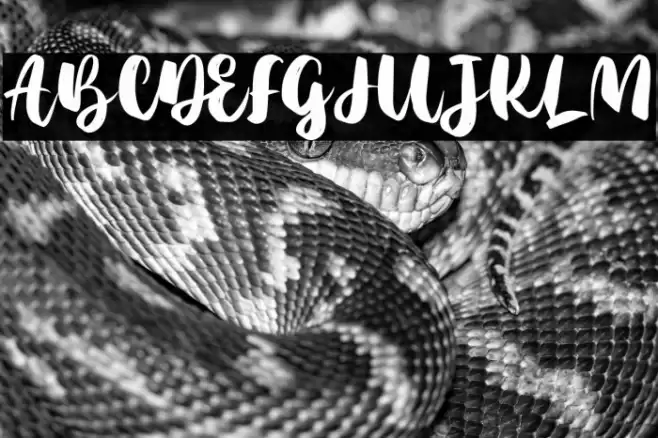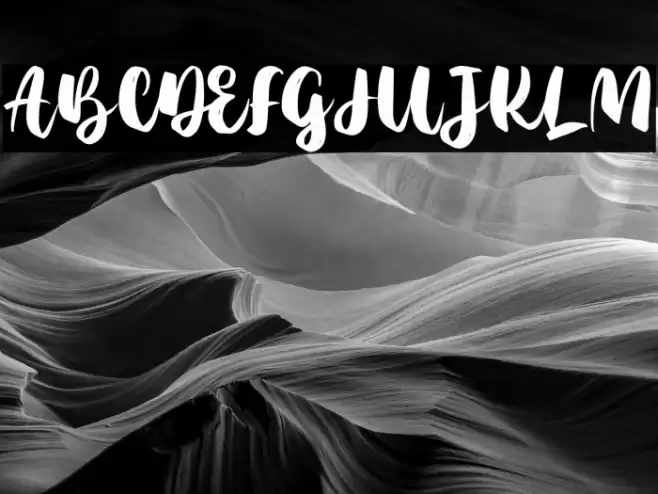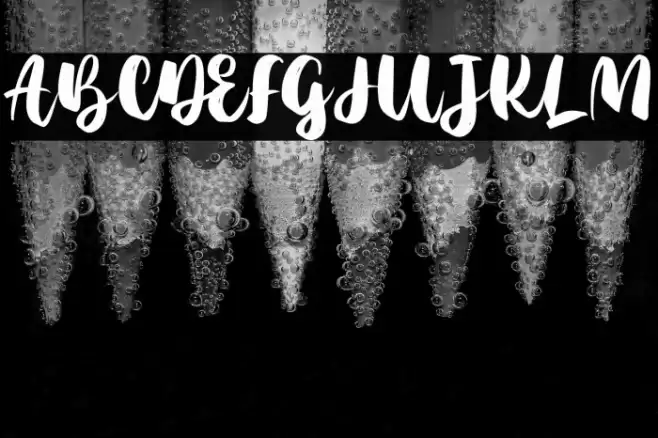
AgilScript Font
AgilScript Description
This font features a bold and expressive script style, characterized by its fluid, cursive strokes and dynamic flow. The letters are interconnected, creating a sense of movement and elegance. The uppercase letters are slightly more elaborate, with flourishes that add a touch of sophistication. The lowercase letters maintain a consistent rhythm, enhancing readability while preserving the artistic flair. The numbers and special characters are designed to complement the overall aesthetic, ensuring a cohesive look across all text elements. This font is ideal for projects that require a personal, handwritten touch, such as invitations, greeting cards, and branding materials.
A bold, expressive script font with fluid, cursive strokes and dynamic flow from Uncategorized fonts.
- Font: AgilScript
- Proposed Projects: Ideal for invitations, greeting cards, branding materials, and any project needing a personal touch.
- Use Case: Logos, Headlines, Decorative text